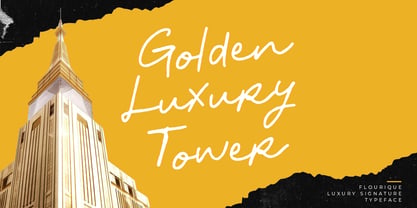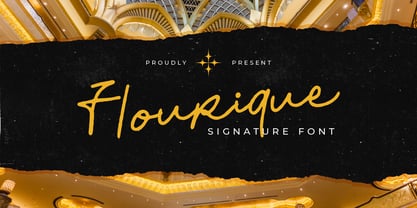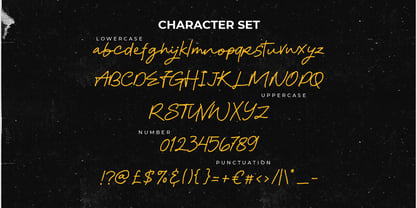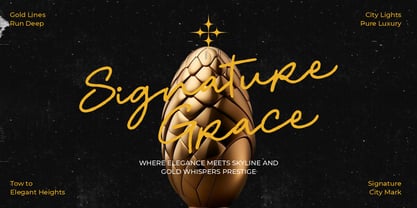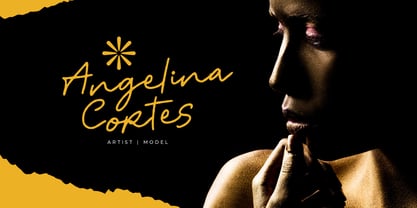
Flourique
by Shanaf
The Flourique Font Family was designed by Yesie Erma Yunita and published by Shanaf. Flourique contains 1 styles. More about this family
Flourique Signature Font is a refined handwritten typeface designed to capture elegance and luxury. Each letter carries the charm of natural pen strokes, creating a fluid and authentic appearance. The script style features smooth curves and stylish ligatures, perfect for high-end branding projects. Its golden-toned presentation enhances the luxurious feel, making it suitable for fashion labels, wedding invitations, personal signatures, or exclusive packaging. The font layout emphasizes clarity while maintaining a graceful flow, ensuring readability across both print and digital designs.
This font offers versatility by balancing elegance and modern flair. Its signature style adapts seamlessly to various creative needs, from logos and posters to book covers and magazine layouts. The combination of uppercase and lowercase letters, supported by numerals and punctuation, provides creative freedom. Flourique’s graceful strokes embody prestige and sophistication, giving every design a royal touch. Whether you are building a personal brand, crafting event invitations, or designing luxury product packaging, Flourique ensures your work reflects timeless elegance with professional detail.
Designers: Yesie Erma Yunita
Foundry: Shanaf